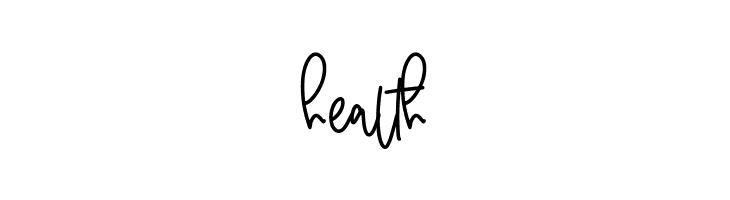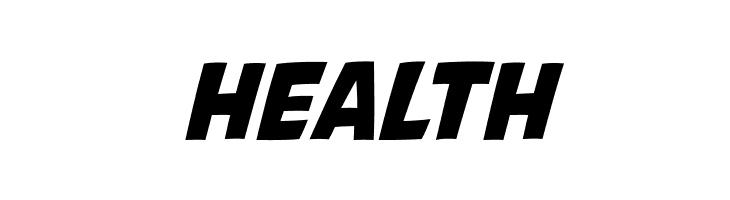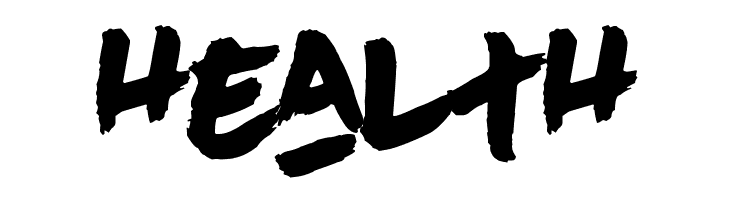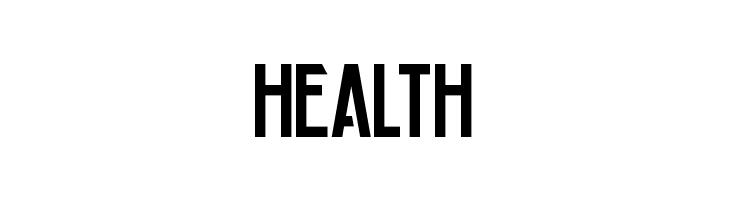
A bold, angular font with a dynamic and futuristic style.
A bold, italicized font with strong, dynamic letterforms and a modern, impactful style.
A bold, slanted font with a dynamic and powerful style.
A bold, modern font with a slightly condensed style and strong lines.
A sleek, modern, light italic sans-serif font with elegant slant.
A modern, geometric sans-serif font with clean lines and uniform stroke width.
A playful, casual handwritten font with expressive, flowing letterforms.
A bold, brush-style font with dynamic and energetic strokes.
An elegant script font with flowing cursive style and intricate loops.